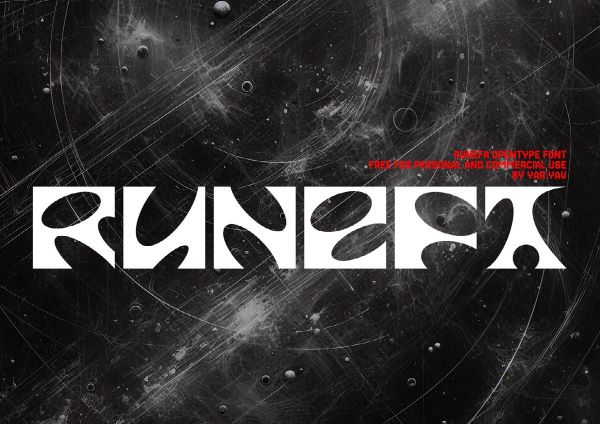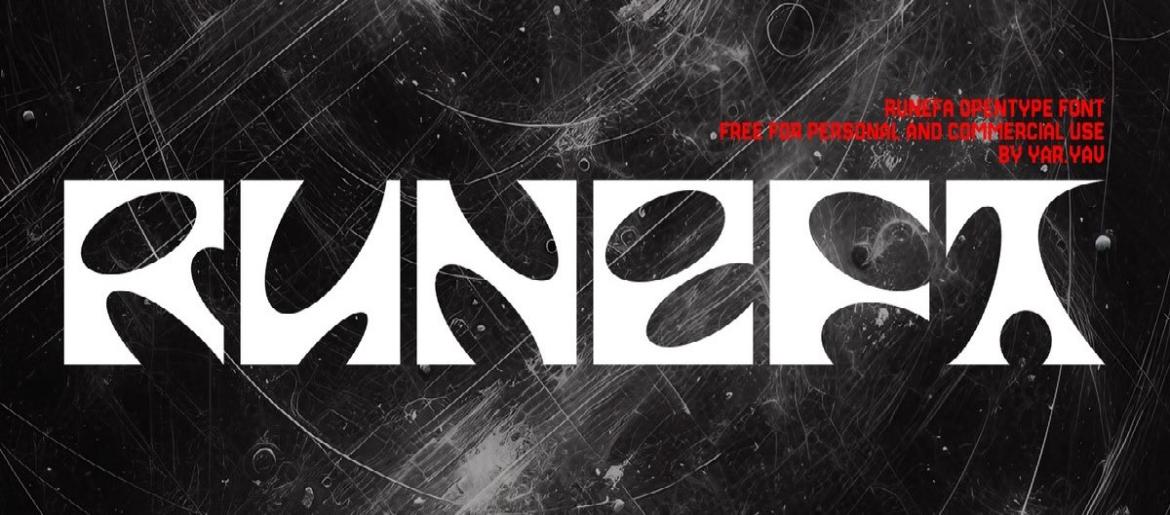
Runefa Font
Runefa is a display typeface built around a single compelling design idea: transforming simple squares into fluid, organic letterforms. The result is a striking contrast between hard geometric edges and soft, flowing curves that gives each character a sculptural, almost animated quality. It works especially well in contexts where structural boldness and visual intrigue need to coexist.